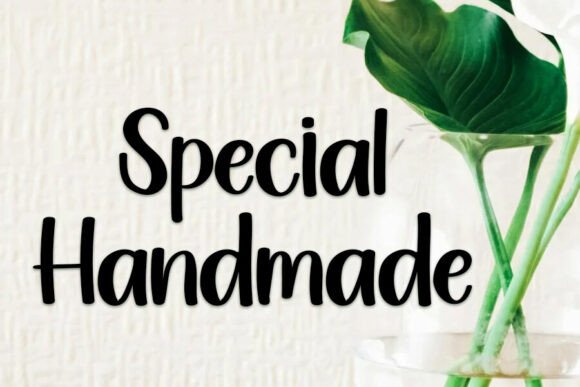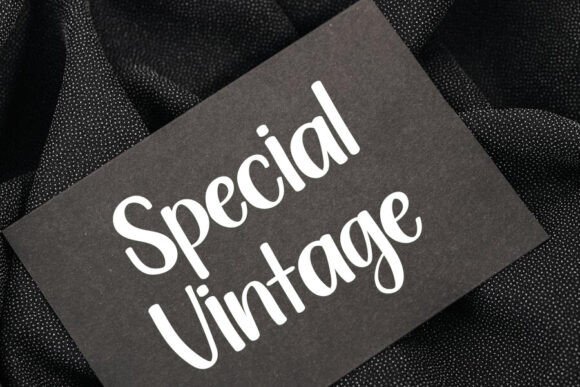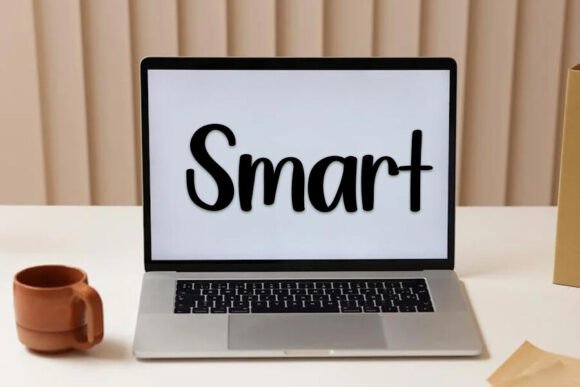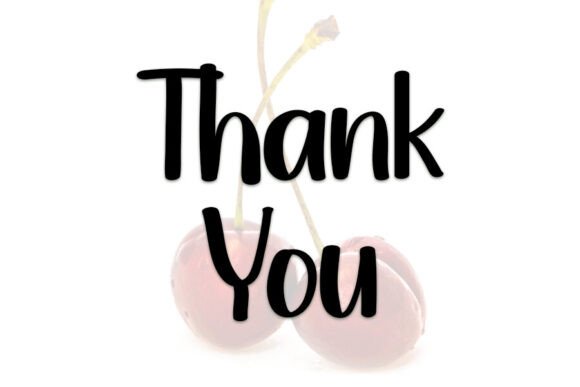
Introducing Cherry Font: Elevate Your Designs with Elegance and Simplicity
In the world of design, fonts play a crucial role in conveying the message and aesthetic of a project. Whether you’re a professional designer or a crafty DIY enthusiast, the right font can make all the difference. That’s where Cherry Font comes in – a sophisticated and vibrant typeface designed to breathe new life into your creativity. With its unique blend of elegance and simplicity, Cherry Font is the perfect styled script for a wide range of design needs.
Unleash Your Creativity with Cherry Font
Cherry Font is a versatile and artistic typeface that flawlessly intertwines elegance and simplicity. Its unique and simple styling makes it an ideal choice for various design projects, from glamorous YouTube banners and striking logo mockups to captivating wedding invitations and professional ID cards. With Cherry Font, you can add an artistic flair to your creations that is both subtle and captivating.
Perfect for a Variety of Design Needs
Cherry Font is a perfect fit for a myriad of design needs, including:
- YouTube Banners: Create stunning YouTube banners that showcase your personality and style with Cherry Font.
- Logo Mockups: Elevate your logo designs with the sophisticated and vibrant look of Cherry Font.
- Wedding Invitations: Make your wedding invitations truly special with the elegant and simple styling of Cherry Font.
- ID Cards: Create professional and visually appealing ID cards with Cherry Font.
- Flyers and Crafts: Add an artistic touch to your flyers and crafts with the unique and captivating style of Cherry Font.
Why Choose Cherry Font?
So, what sets Cherry Font apart from other fonts? Here are just a few reasons why designers and crafters love Cherry Font:
- Unique and Simple Styling: Cherry Font boasts a distinctive and straightforward design that makes it stand out from the crowd.
- Elegant and Sophisticated: With its elegant and sophisticated look, Cherry Font is perfect for designs that require a touch of refinement.
- Versatile: Cherry Font can be used for a wide range of design projects, from digital designs to print materials.
- Easy to Read: Despite its elegant and artistic look, Cherry Font is easy to read, making it perfect for body text and headlines.
Take Your Designs to the Next Level with Cherry Font
With Cherry Font, your creations will not only mesmerize but also elevate to excellence. This font is designed to help you express your unique visual finesse and take your designs to the next level. Whether you’re a professional designer or a crafty DIY enthusiast, Cherry Font is the perfect choice for anyone looking to add a touch of elegance and sophistication to their designs.
In conclusion, Cherry Font is a sophisticated and vibrant typeface that is sure to breathe new life into your creativity. With its unique blend of elegance and simplicity, Cherry Font is the perfect styled script for a wide range of design needs. Whether you’re looking to create stunning YouTube banners, striking logo mockups, or captivating wedding invitations, Cherry Font is the perfect choice. So why wait? Dive into the striking versatility of Cherry Font and take your designs to the next level!